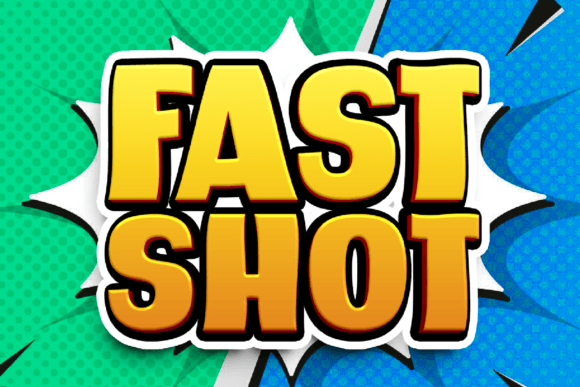
Introducing Fast Shot Font: The Ultimate Display Comic Font for Bold Headlines
In the world of typography, fonts play a crucial role in conveying messages, evoking emotions, and creating visual impact. When it comes to making a statement, a strong display font is essential for grabbing attention and communicating effectively. This is where Fast Shot Font comes into play – a robust and playful display comic font designed to elevate your headlines, titles, and captions.
What is Fast Shot Font?
Fast Shot is a strong display comic font that embodies the perfect blend of boldness and playfulness. Its unique design makes it an excellent choice for creating visually striking headlines, titles, and captions that demand attention. Whether you’re working on a poster, banner, advertisement, or any other visual project, Fast Shot Font is the ideal solution for adding a touch of personality and flair.
Key Features of Fast Shot Font
1. Bold Letterforms
Fast Shot Font boasts bold letterforms that are designed to make a strong visual impact. Its sturdy and confident appearance ensures that your message is conveyed with authority and emphasis, making it perfect for headlines and titles.
2. High Readability
Despite its playful design, Fast Shot Font maintains high readability, even at smaller sizes. This makes it an excellent choice for use in posters, banners, and advertisements where the message needs to be communicated quickly and effectively.
3. Versatility
Fast Shot Font is incredibly versatile and can be used across various platforms and applications. From digital media to print materials, this font adapts seamlessly, ensuring your message looks great everywhere.
Use Cases for Fast Shot Font
1. Posters and Flyers
Make your posters and flyers stand out with Fast Shot Font. Its bold and playful design ensures that your message grabs attention and leaves a lasting impression.
2. Banners and Signage
Fast Shot Font is perfect for banners and signage, where its bold letterforms can be seen from a distance. Use it to create eye-catching displays that draw in crowds.
3. Advertisements
In the world of advertising, standing out is crucial. Fast Shot Font helps you do just that, adding a touch of personality and flair to your ads that captures attention and engages viewers.
4. Digital Media
Fast Shot Font is not just limited to print. It’s also perfect for digital media, including social media posts, website headers, and video titles. Its bold and playful design translates well across various digital platforms.
Tips for Using Fast Shot Font Effectively
1. Pair with Complementary Fonts
For maximum impact, pair Fast Shot Font with complementary fonts that enhance its bold and playful design. Choose fonts that are clean and simple to create a balanced look.
2. Use for Headlines and Titles
Fast Shot Font is designed for headlines and titles, where its bold letterforms can shine. Use it to create attention-grabbing headings that draw readers in.
3. Experiment with Colors and Effects
Don’t be afraid to experiment with different colors and effects when using Fast Shot Font. Its playful design lends itself well to creative treatments that can enhance its visual impact.
Fast Shot Font is a powerful tool for anyone looking to add a bold and playful touch to their visual projects. Its strong display comic font design makes it perfect for headlines, titles, and captions, while its high readability ensures that your message is communicated effectively. Whether you’re working on posters, banners, advertisements, or digital media, Fast Shot Font is an excellent choice for making a statement.